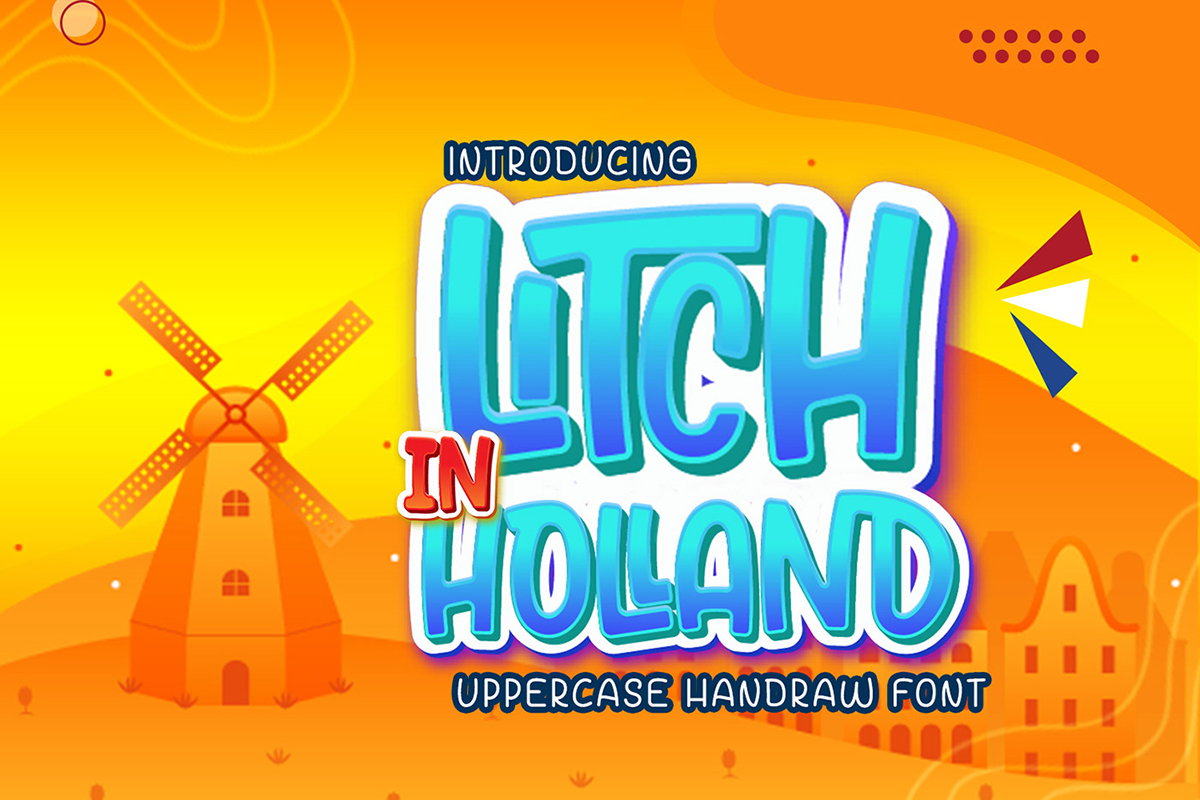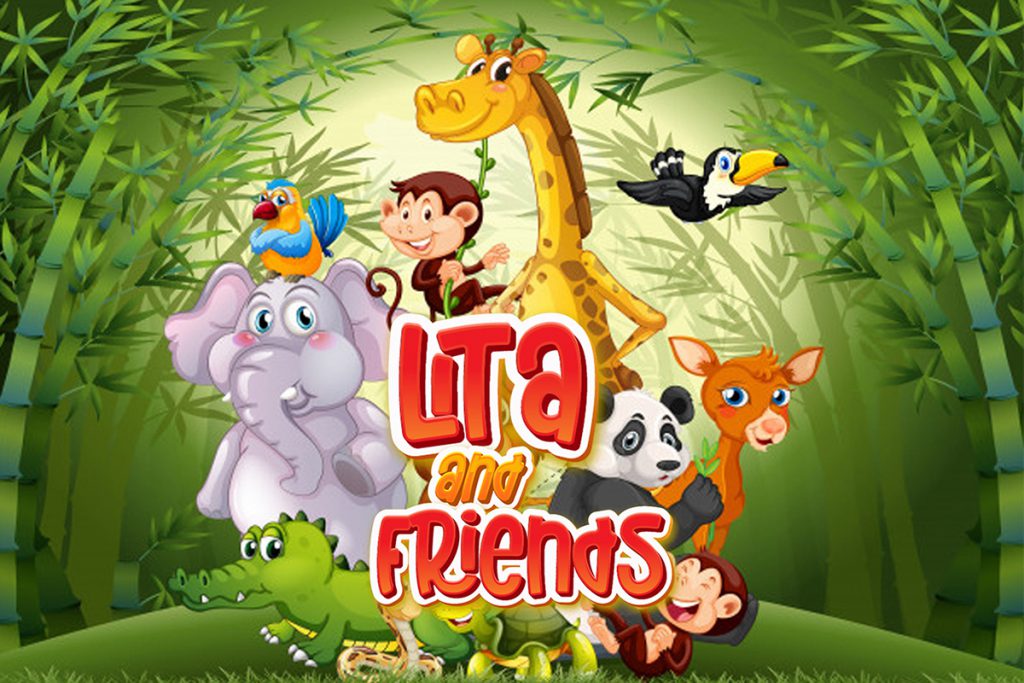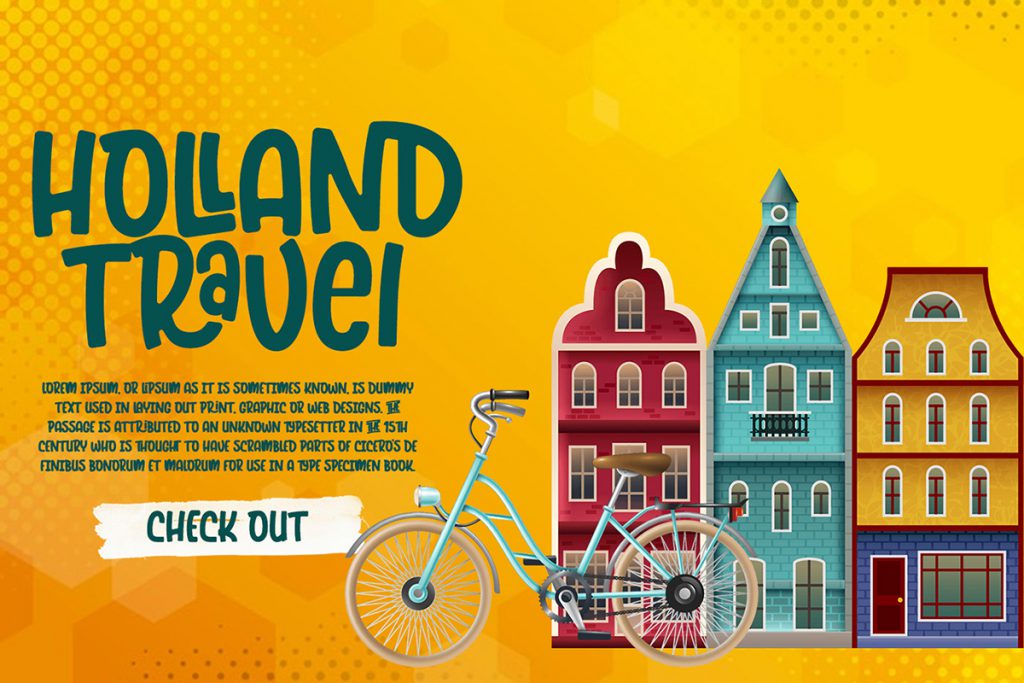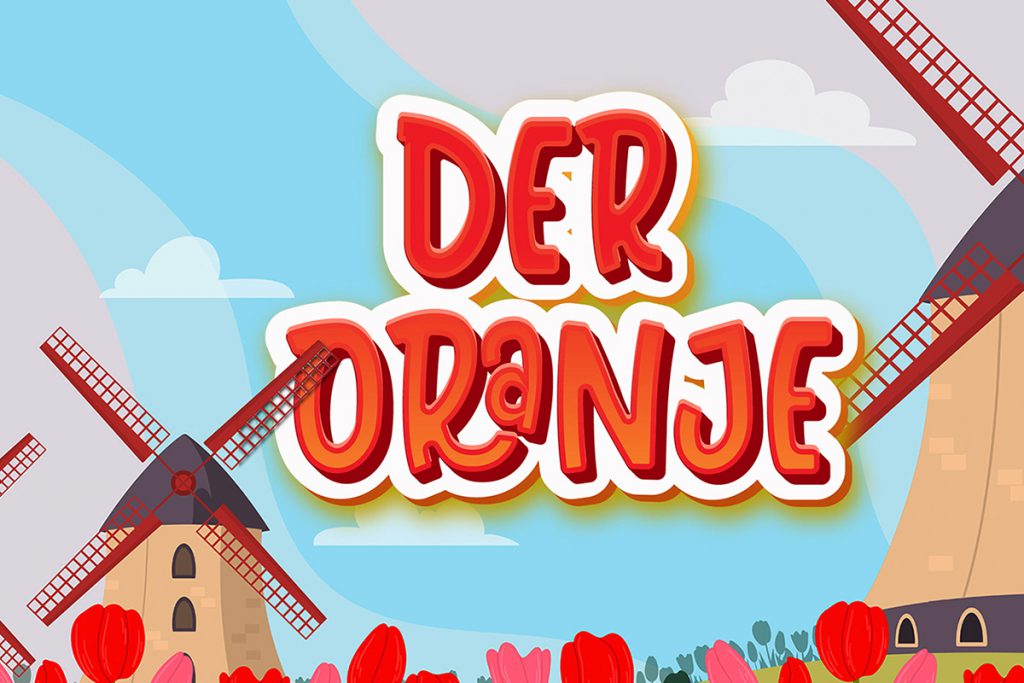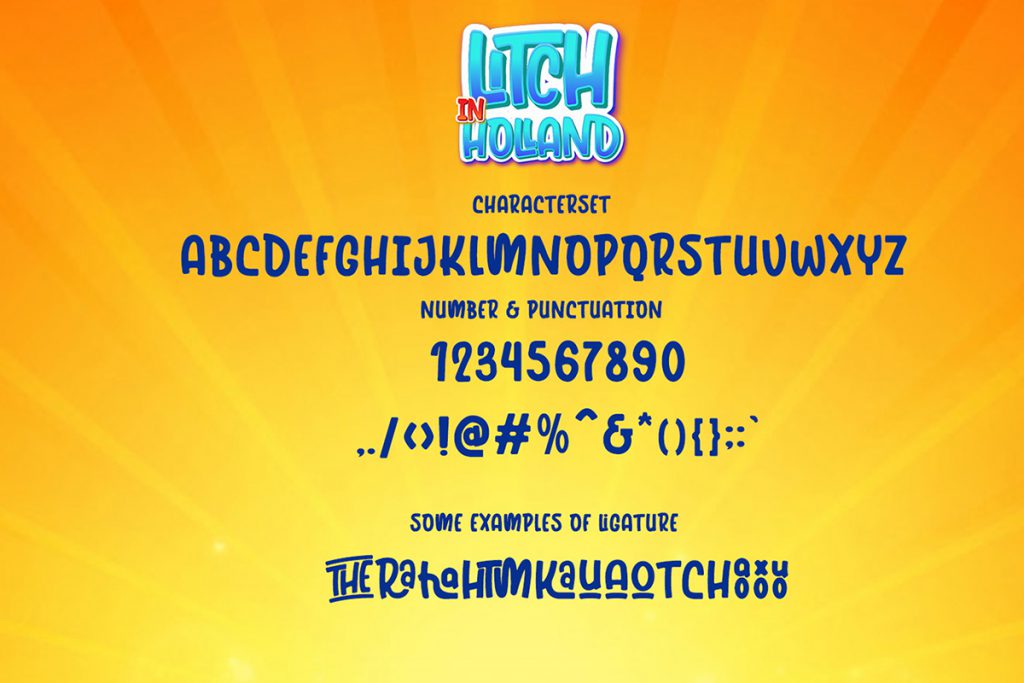
Litch In Holland: Free Handwritten Font
Litch in Holland is a free handwritten font in uppercase, which take its inspiration from the culture and beauty of the Dutch country. It means as a manifestation of a masterpiece of god, the designers developed existing ideas inspired by the mighty mountain font then developed it to represent Dutch beauty. Aside, the font is appear fun and playful that is great for display purposes such as books, poster, and logo.